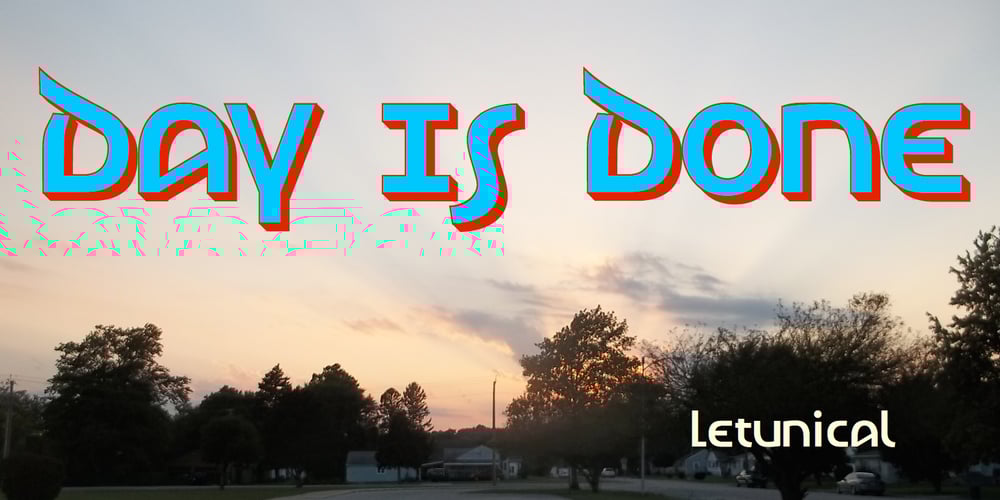
Letunical
Letunical font
Letunical Font Family was designed by Robert Schenk and published by Ingrimayne Type. Letunical contains 7 styles and family package options. Letuncial is a sans-serif typeface in which the shapes of the letters are derived from uncial, a writing style in the early medieval period. Like uncial, it has no true upper-case letters. Rather it has two sets of letters that are interchangeable. Fonts Letunical Inline Overlay-Middle and Letunical Inline Overlay Inside are designed to be layered with Letunical Inline to produce bicolored or tricolored letters and Letunical Shadow Inside is designed to layered with Letunical Shadow to produce bicolored letters.